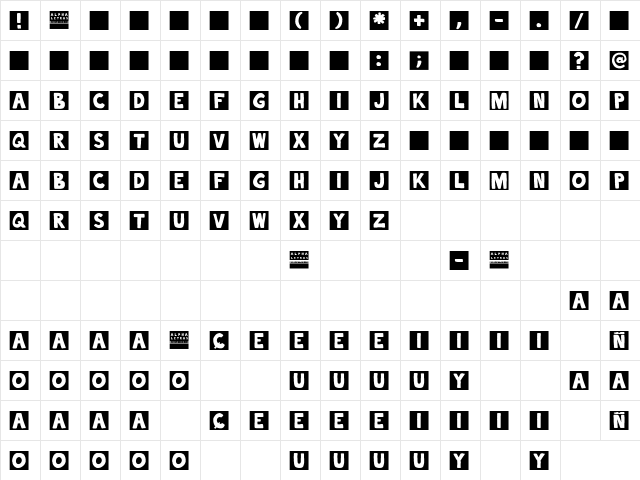
alphaletras Regular
Design Context for alphaletras Typeface
alphaletras offers clean, dependable letterforms without strong stylistic allegiance, making it a practical choice for designers who need flexibility.